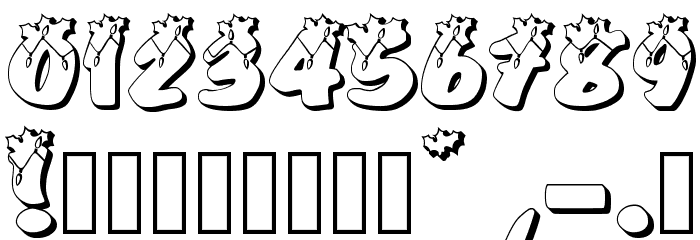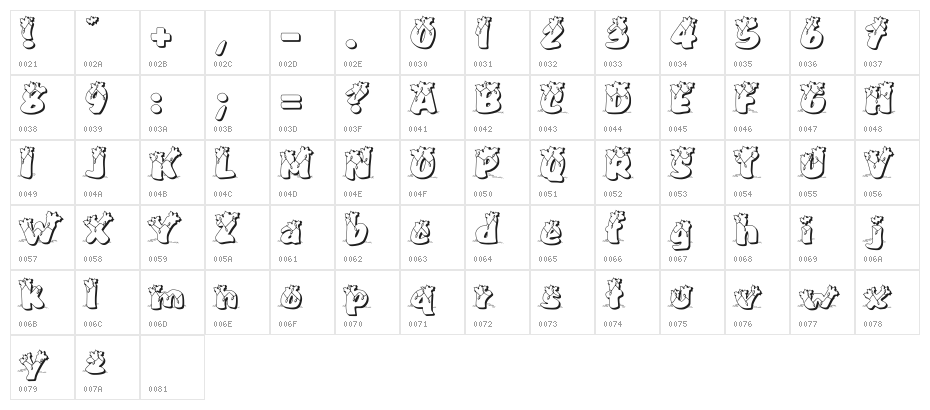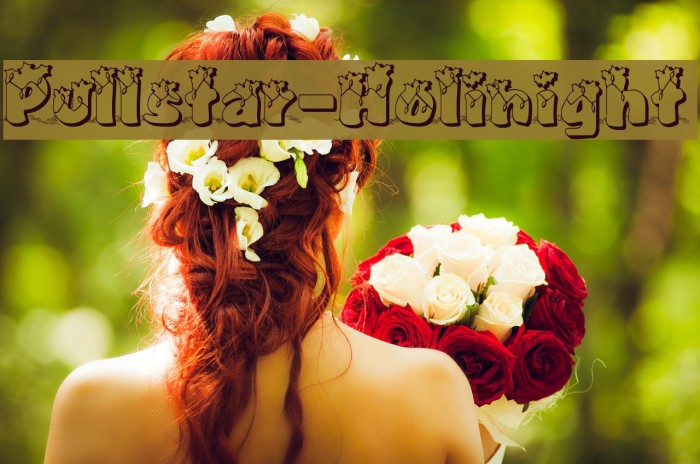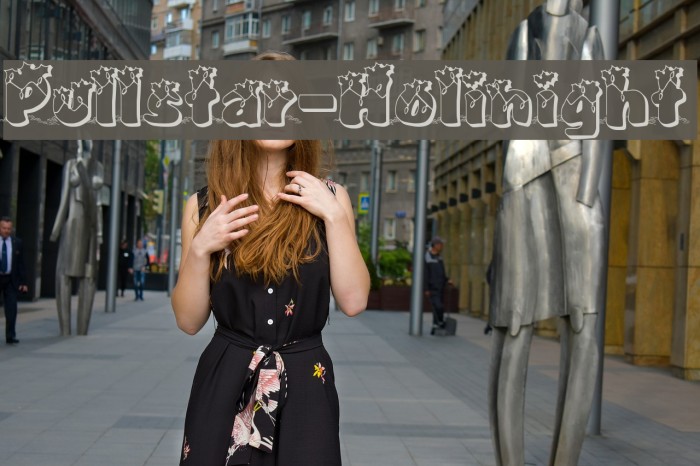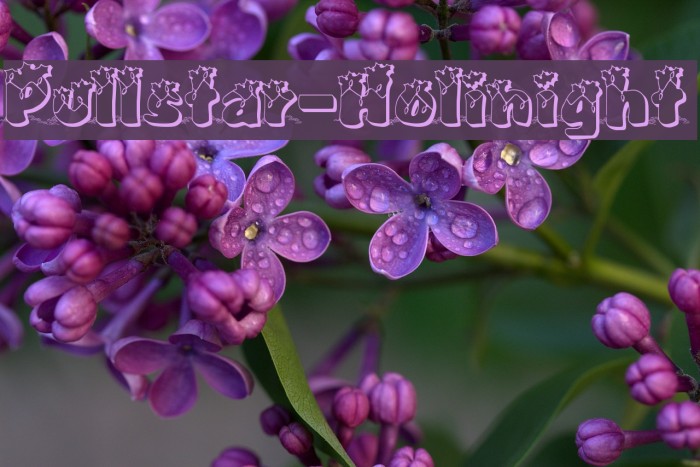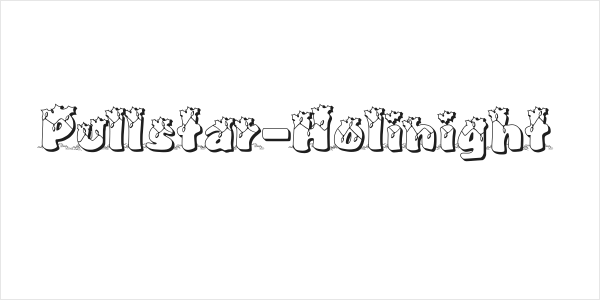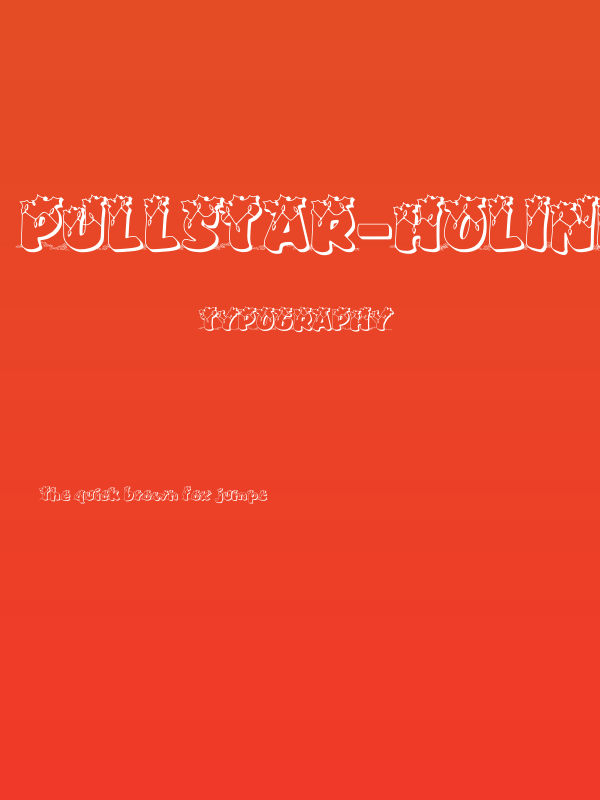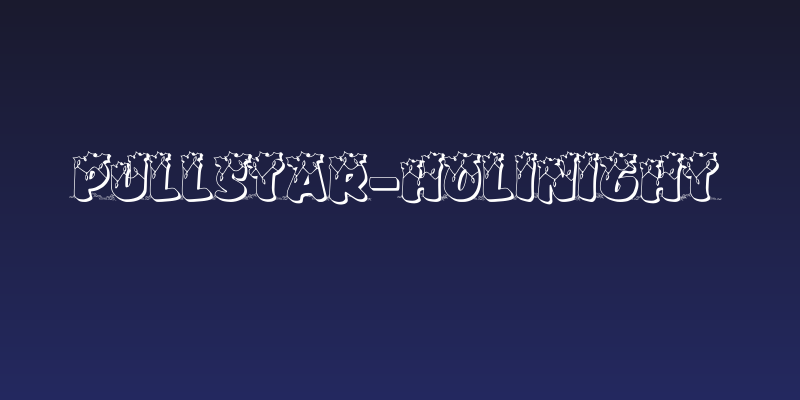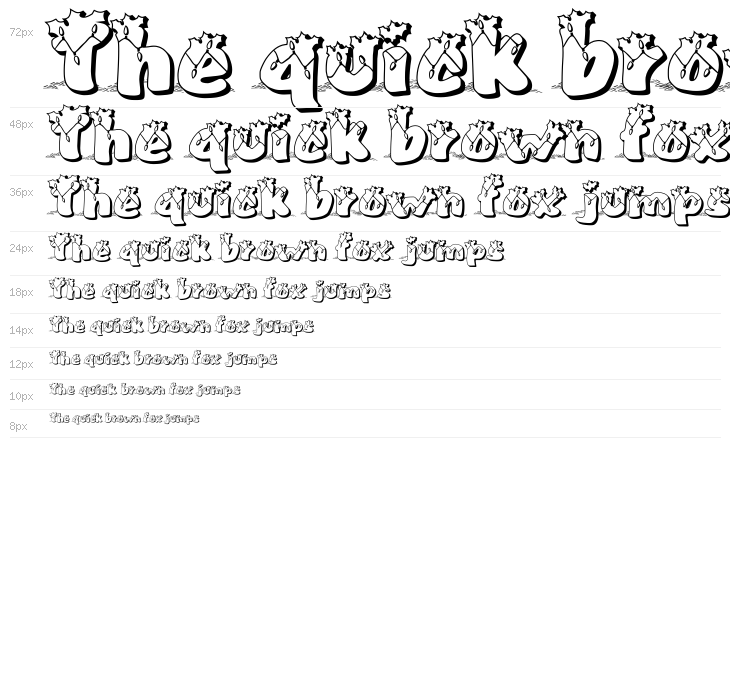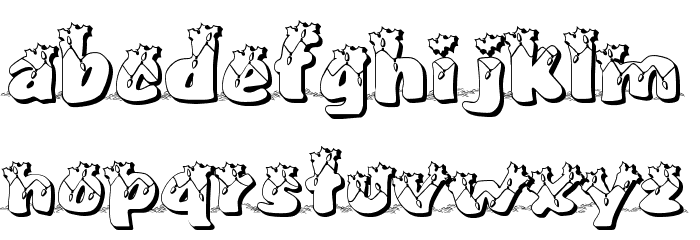
Pullstar-Holinight Font
Pullstar-Holinight Description
This playful and festive font features bold, three-dimensional letters adorned with holly leaves, creating a lively and cheerful appearance. The uppercase and lowercase letters maintain a consistent style, with each character outlined in black to enhance visibility and add depth. The numbers and special characters follow the same decorative theme, making the font ideal for holiday-themed projects. The whimsical design is both eye-catching and fun, perfect for capturing the spirit of celebration.
| Overall Style | Festive |